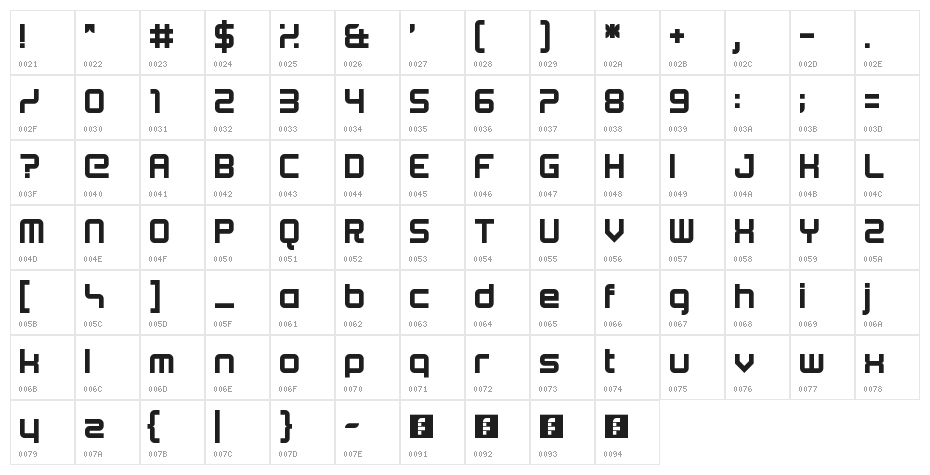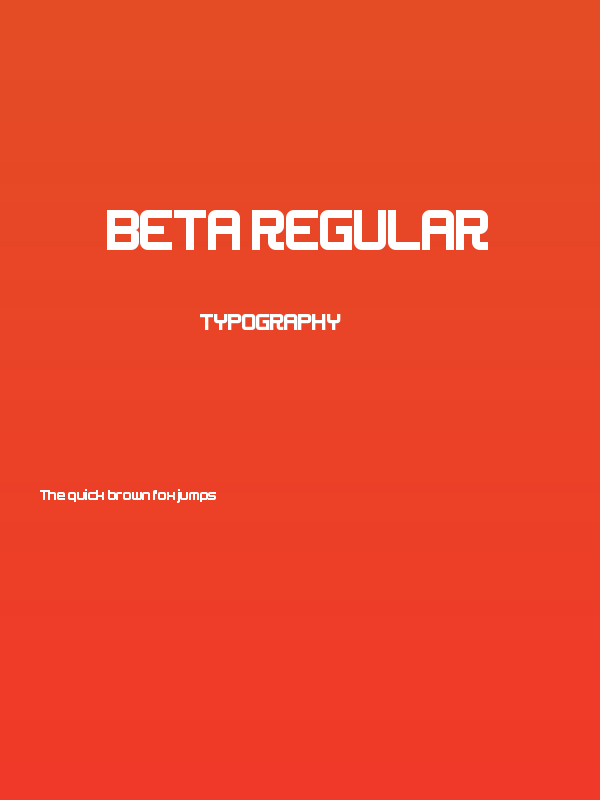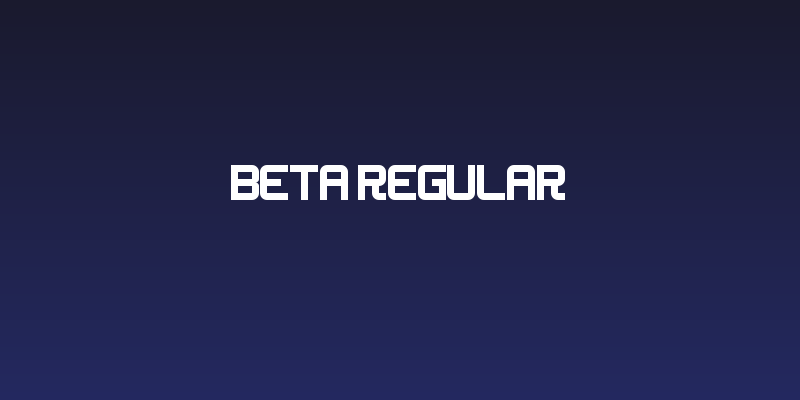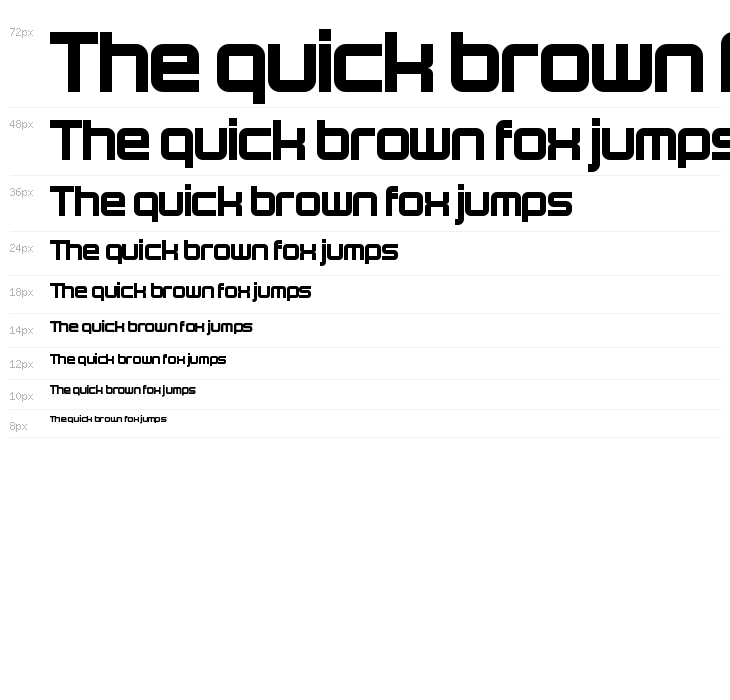
Beta Regular Font
Beta Regular Description
This font features a bold, geometric design with a modern and futuristic appeal. The characters are constructed with thick, uniform strokes that create a strong visual impact. The angular and block-like shapes give it a distinctive, tech-inspired look. The uppercase and lowercase letters maintain a consistent style, with rounded edges that soften the overall appearance. The numerals and special characters follow the same design principles, ensuring a cohesive aesthetic throughout. This font is highly legible and stands out in any context, making it suitable for a variety of design applications.
Use CaseHeadlines, Logos
Proposed ProjectsIdeal for technology branding, video game titles, futuristic posters, and digital media.